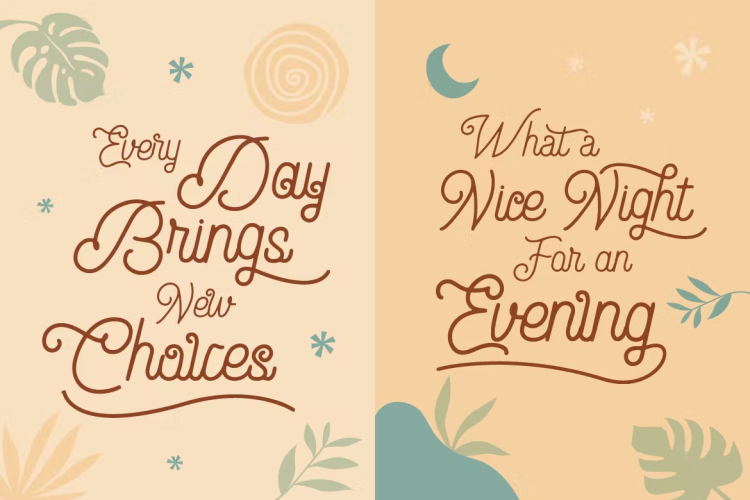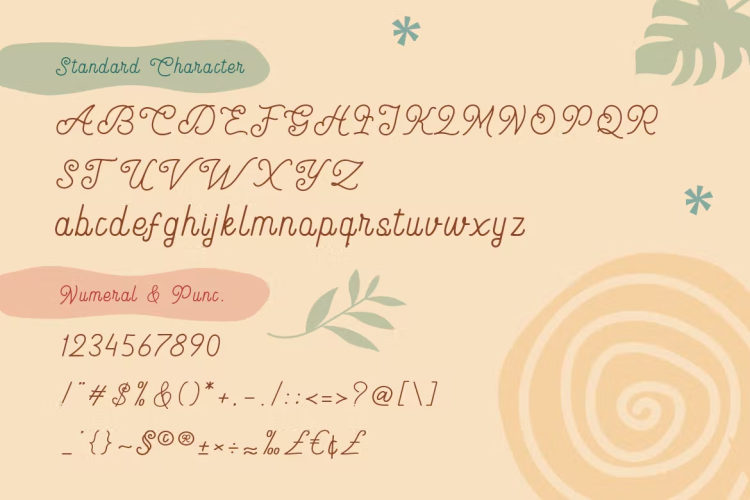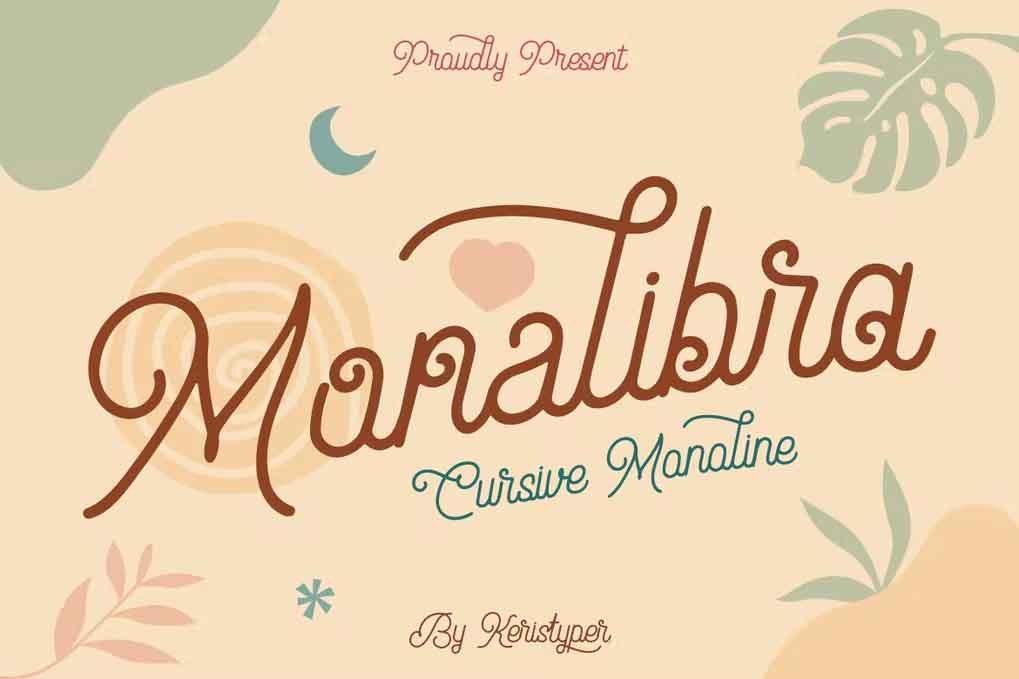
Monalibra Font
Introducing Monalibra, an elegant vintage handcrafted font. Designed with a really clean and clear monoline cursive script typeface that is easy to read while keeping a…
Introducing Monalibra, an elegant vintage handcrafted font. Designed with a really clean and clear monoline cursive script typeface that is easy to read while keeping a sense of personality. This font is good for logo design, Social media, Movie Titles, Books Titles, short text even long text letters, and good for your secondary text font with sans or serif.
Where Monalibra Font works best
Monalibra Font brings a personal, handwritten warmth to invitations, menus and place cards.
Craft brands — coffee, cosmetics, bakery — use scripts like Monalibra Font for signature-style logos and labels.
Pair Monalibra Font with a plain sans for quotes, stories and Pinterest pins that feel handmade.
What is Monalibra Font good for?
Monalibra Font is a Script And Handwritten typeface tagged Branding, Clean, Elegant, Readable. It works well for headlines, logos, posters, social media graphics and branding projects that need a distinctive script and handwritten look.